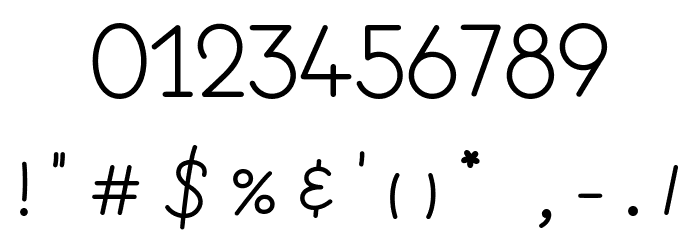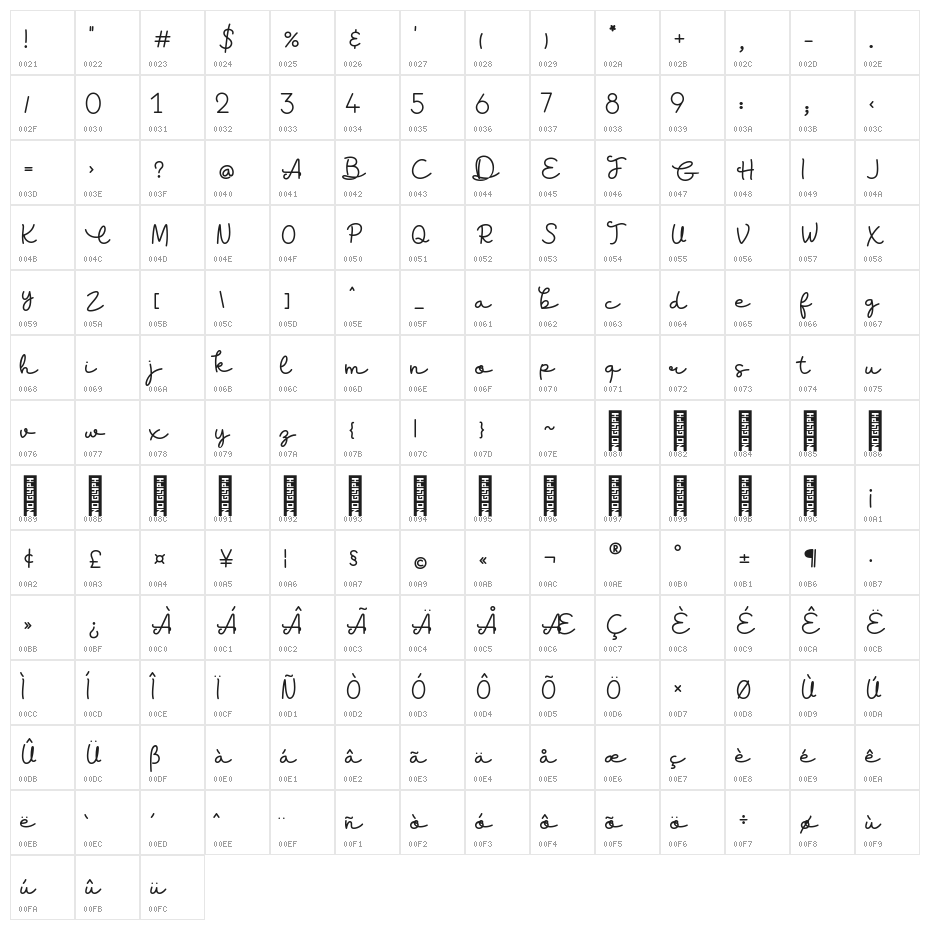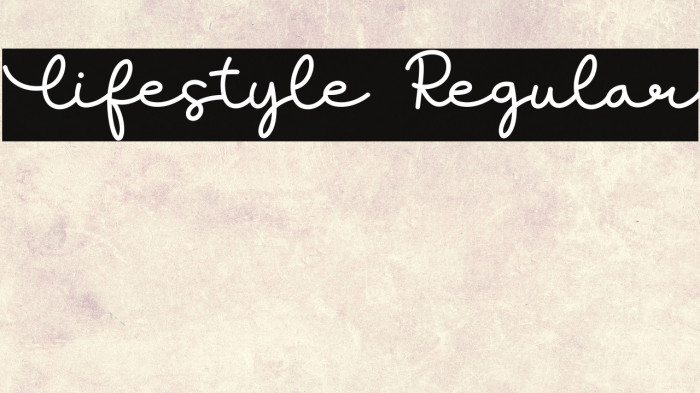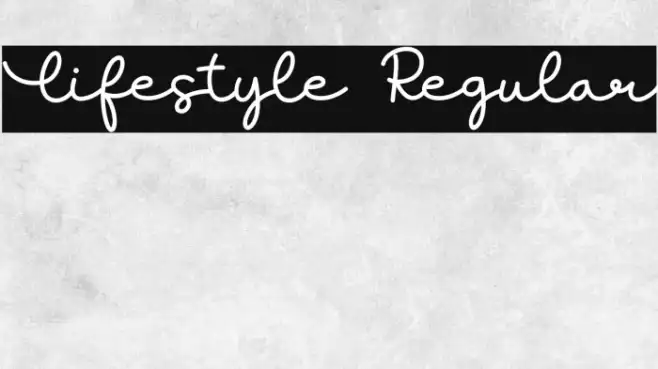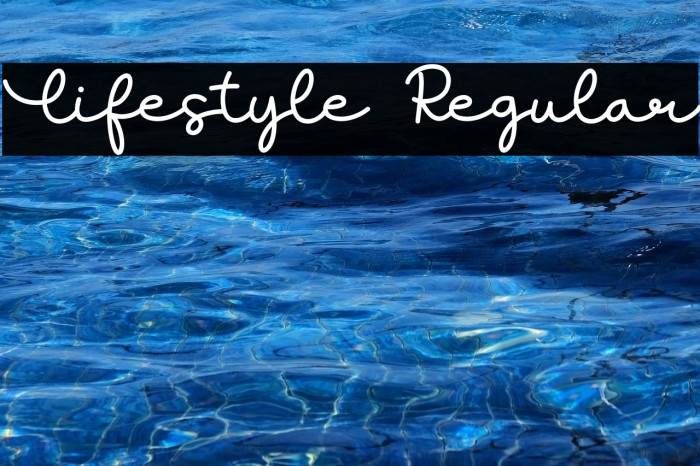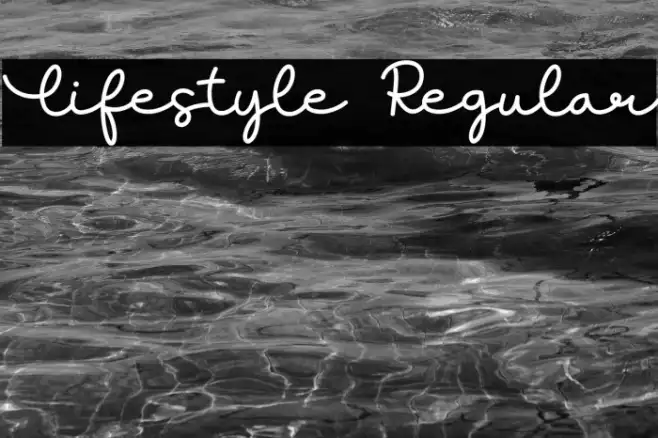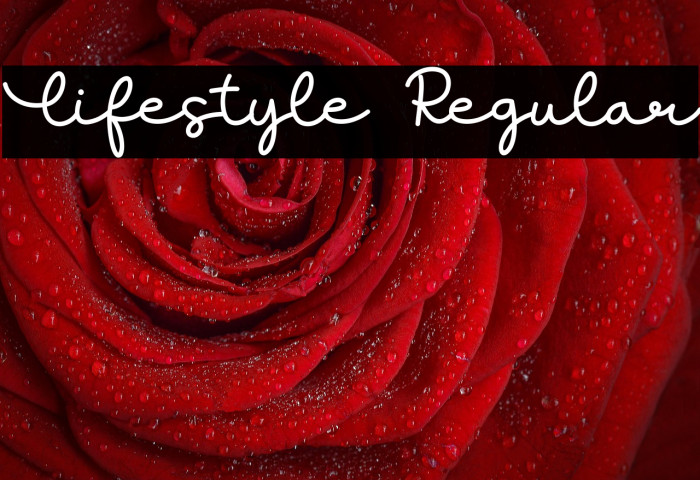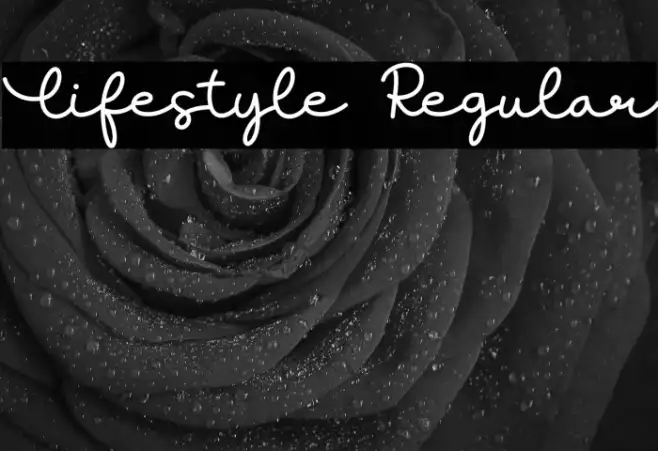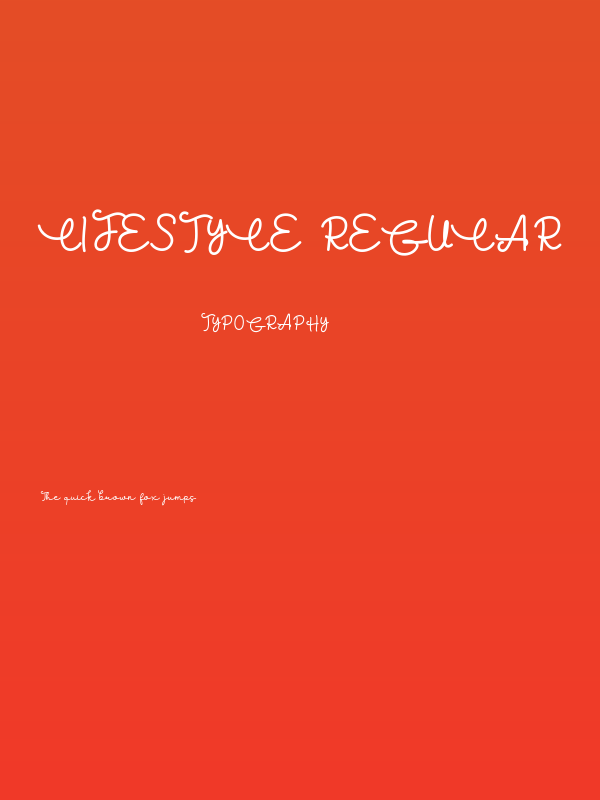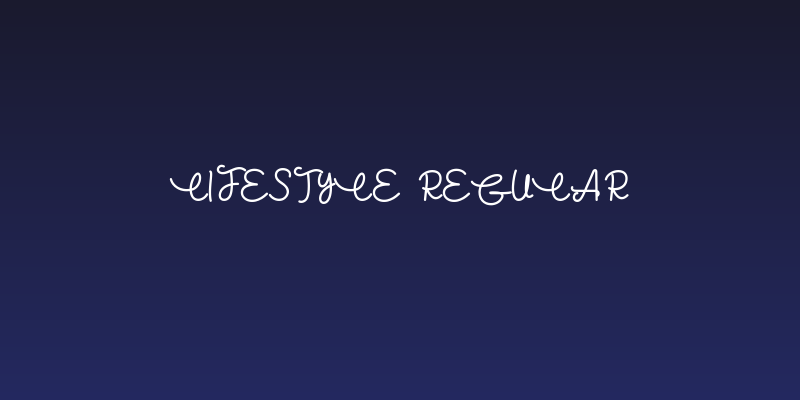
Lifestyle Regular Font
Lifestyle Regular Description
This font features a casual, handwritten style with a smooth, flowing script that mimics natural handwriting. The uppercase letters are bold and slightly slanted, giving a dynamic and lively appearance. The lowercase letters maintain a consistent flow, with rounded edges and a playful character. Numbers are clear and legible, matching the overall aesthetic. Special characters are integrated seamlessly, maintaining the handwritten feel. The font exudes a friendly and approachable vibe, making it suitable for a variety of creative projects.
| Use Case | Logos, Invitations, Social Media |
| Proposed Projects | Ideal for greeting cards, invitations, personal branding, and social media graphics. |